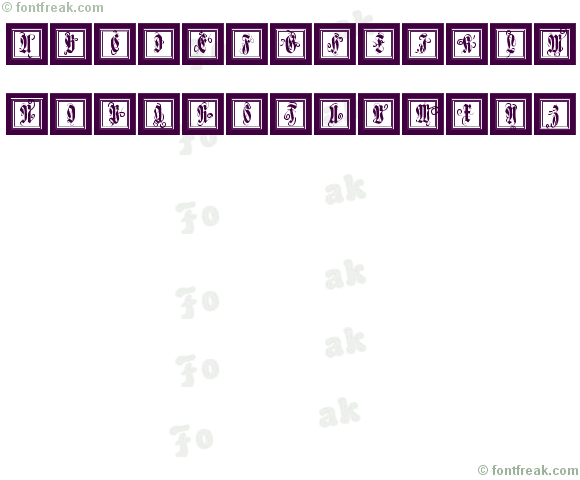
FramedFraxCaps
FramedFraxCaps by Manfred Klein is a captivating display font that merges artistic flair with a structured design, making it an ideal choice for a variety of creative projects. This font falls within the decorative category, characterized by its unique frame-like elements that enclose each letter. The visual style is defined by bold stroke weights and a consistent contrast that draws attention, combined with a playful spacing that enhances its overall aesthetic appeal. The framed design adds a layer of sophistication, making it visually striking and memorable.
FramedFraxCaps is particularly well-suited for use cases such as wedding invitations, where its decorative nature can convey elegance and style. Additionally, it is perfect for movie posters, giving titles a dramatic flair that captures the audience's interest. Restaurant menus can benefit from its distinctive look, allowing establishments to stand out and create a memorable dining experience. This font is also ideal for branding projects, particularly for businesses looking to convey creativity and uniqueness. Content creators and graphic designers will find it a valuable asset in their toolkit, providing a fresh alternative to more conventional fonts.
Ultimately, FramedFraxCaps stands out due to its combination of artistry and functionality. Its distinctive framed letters not only capture attention but also add a unique character to any design, making it a versatile choice for a wide range of applications. For those interested, the FramedFraxCaps font free download is available, inviting creative exploration.